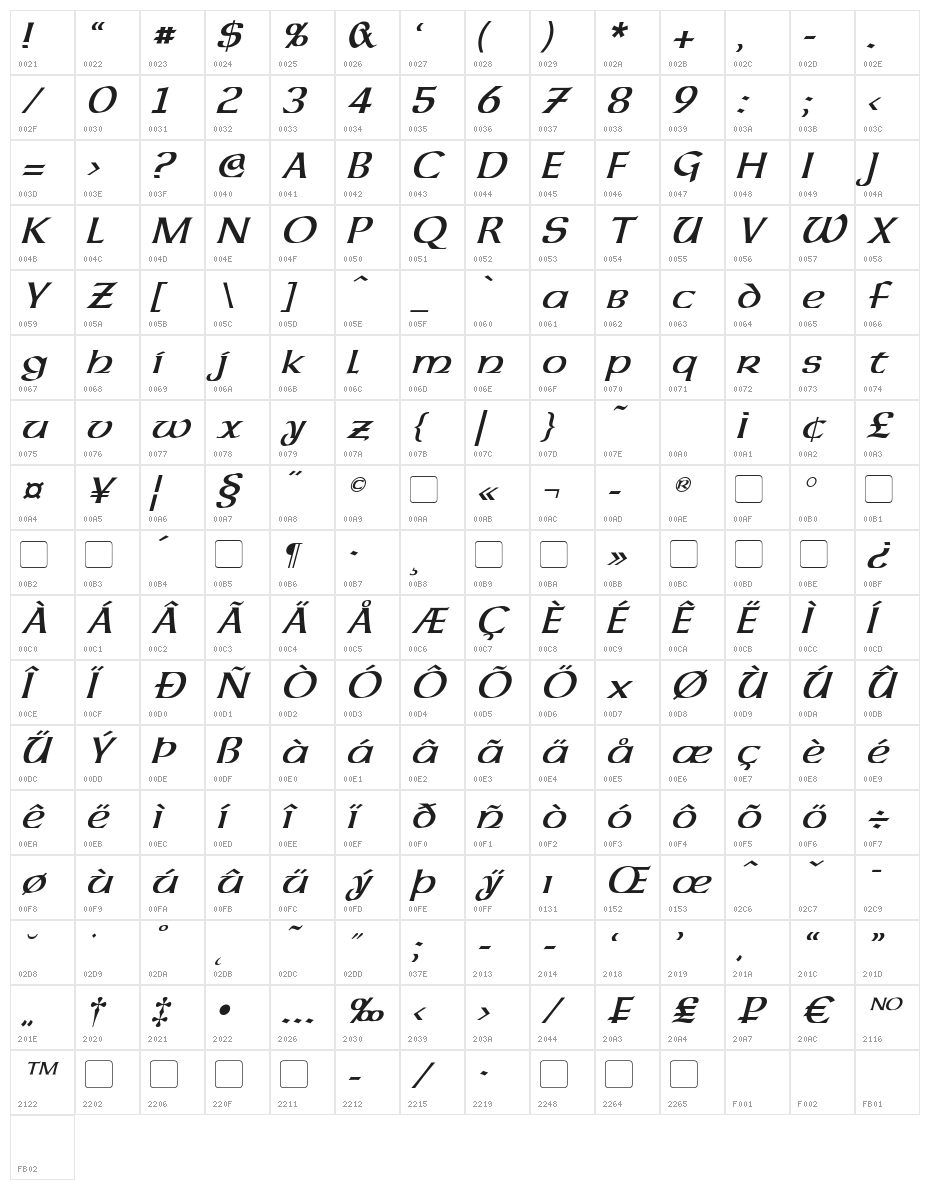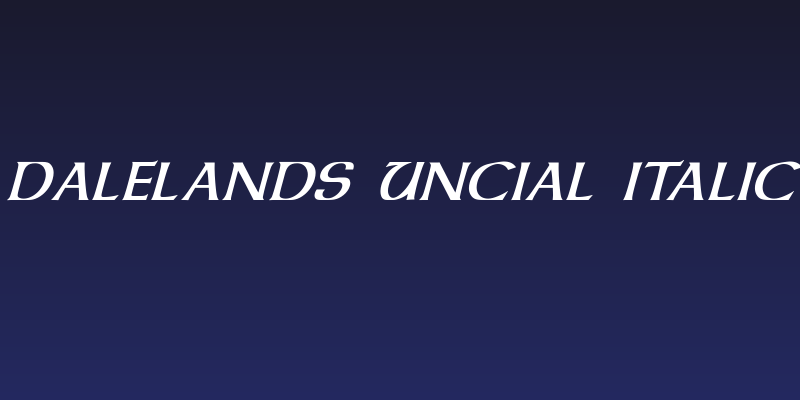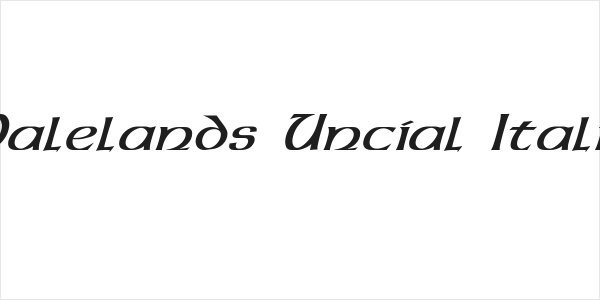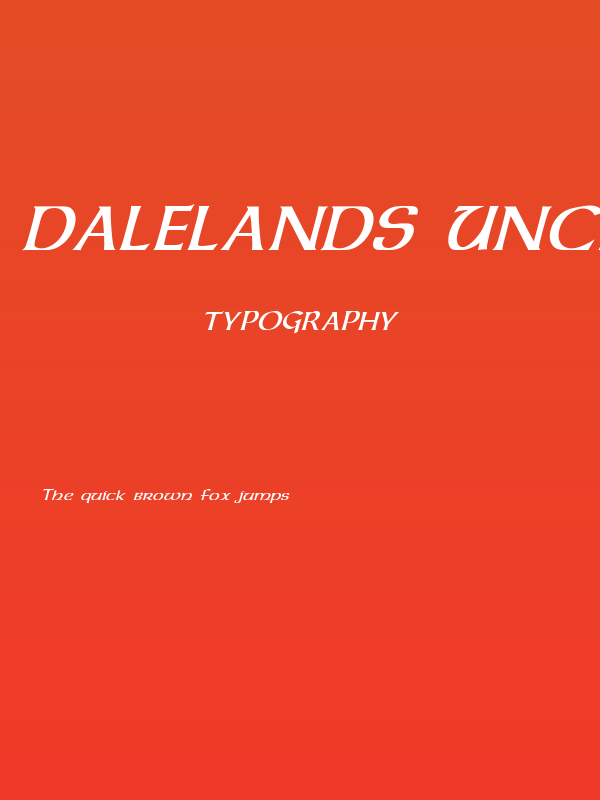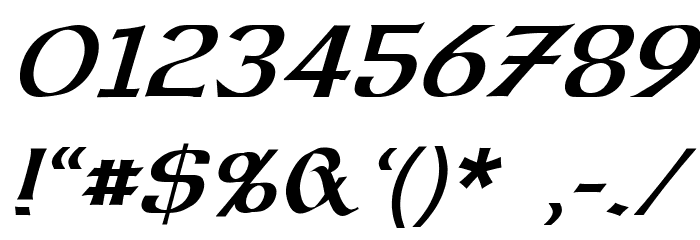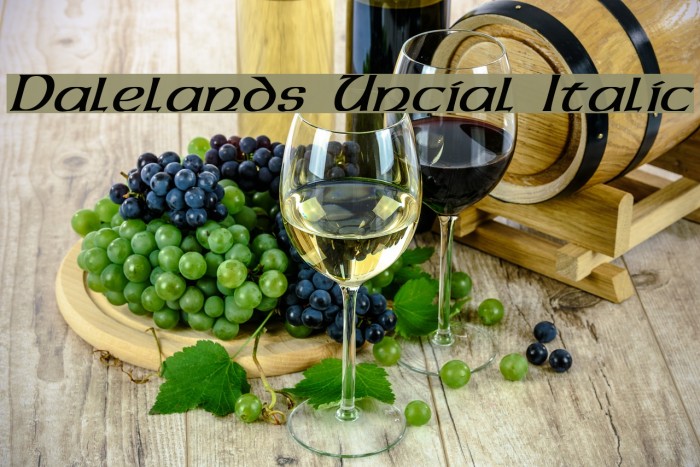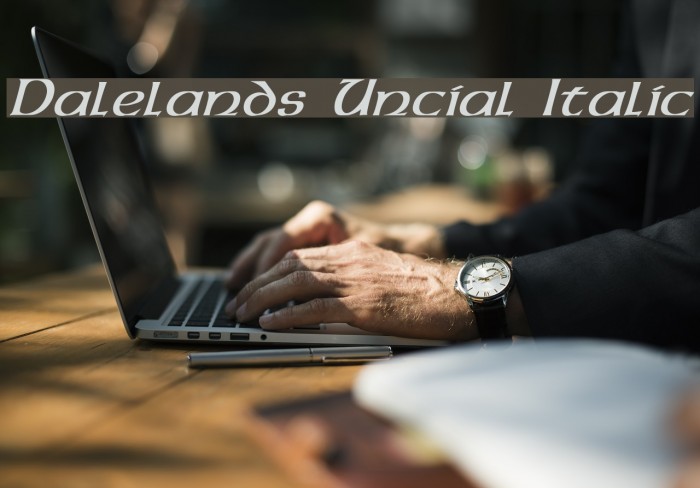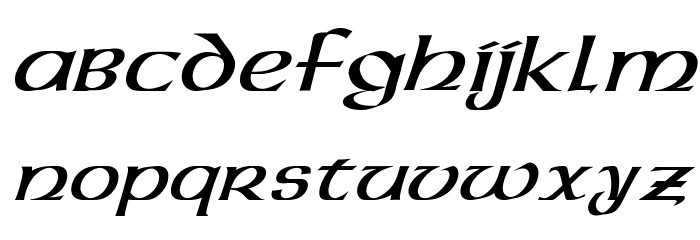
Dalelands Uncial Italic Font
Dalelands Uncial Italic Description
This font features a distinct italic style with a medieval flair, characterized by its sharp, angular serifs and fluid strokes. The uppercase letters are bold and commanding, while the lowercase letters maintain a consistent flow, enhancing readability. The numerals are uniquely styled to match the overall aesthetic, providing a cohesive look. Special characters are elegantly integrated, maintaining the font's thematic consistency. This font's design is reminiscent of historical scripts, making it suitable for projects that require a touch of antiquity and elegance.
| Overall Style | Vintage |
| Proposed Projects | Ideal for fantasy-themed designs, historical documents, book covers, and role-playing game materials. |